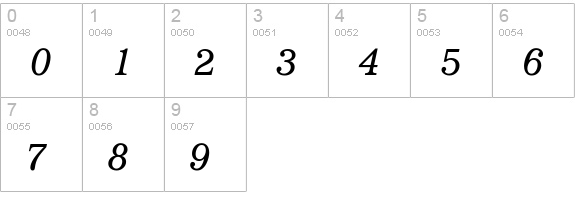
Classic SSi Italic Font Details
Classic SSi Italic is a distinctive, italic variant in the Classic typeface family \xE2\x80\x94 well suited to design and typography projects.
Classic SSi Italic is a timeless and elegant font that exudes sophistication and grace. With its slanted and stylish letterforms, this font adds a touch of class to any design project. The italicized characters of Classic SSi Italic convey a sense of movement and fluidity, making it perfect for use in headings, titles, and decorative elements. What sets Classic SSi Italic apart is not only its classic and refined design, but also the fact that it is available for free download at FontsMarket.com. This means that you can easily access this beautiful font and incorporate it into your creative work without any cost. Whether you are designing a wedding invitation, a logo, or a poster, Classic SSi Italic is a versatile choice that will elevate your designs and give them a touch of timeless elegance. Download Classic SSi Italic today and add a touch of sophistication to your projects.